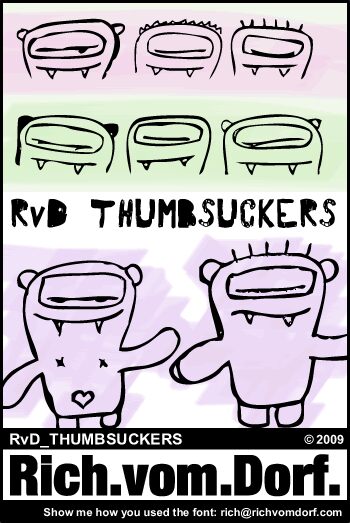
RvD_THUMBSUCKERS Schriftart
RvD Thumbsuckers by Rich vom Dorf is a free cartoon monster dingbat font. Its hand-drawn creature heads share broad, slot-like mouths and uneven rounded outlines, with small fangs, stubby ears, short horns, and jagged spines providing lively variations.
A children's snack brand or novelty toy line could use these odd little faces as mascots across packaging and merchandise. Their loose contours and changing silhouettes give each creature an individual expression, yet the repeated mouth shape keeps the set connected. They could also populate game graphics, party invitations, and comic publishing, acting as a cast of mischievous characters rather than ordinary decoration.